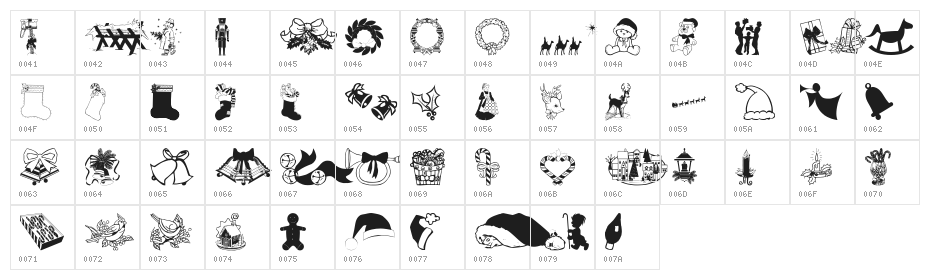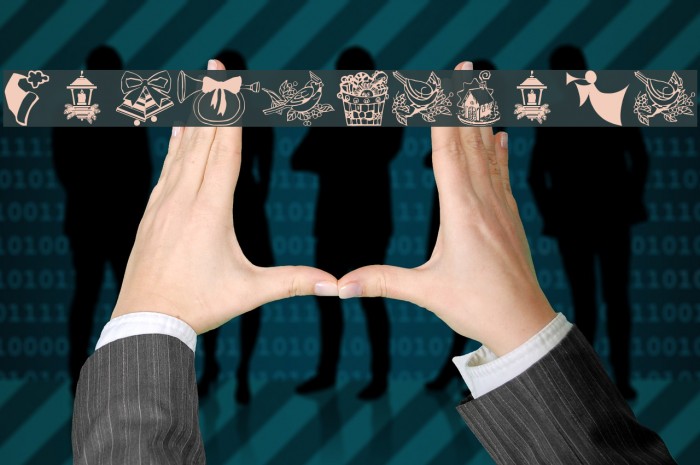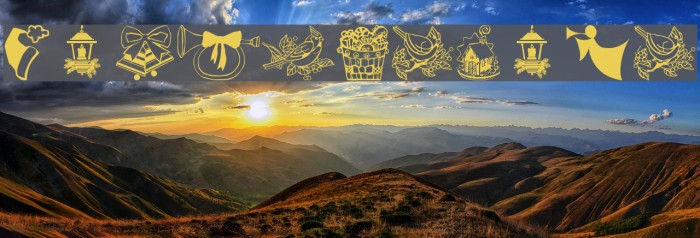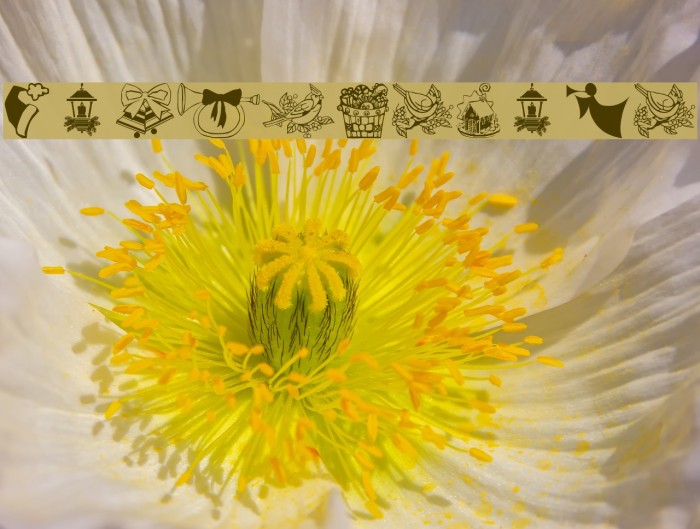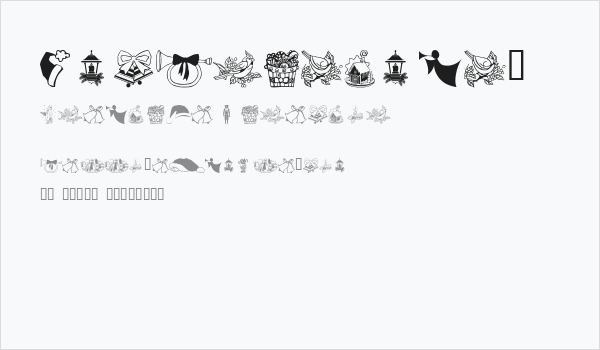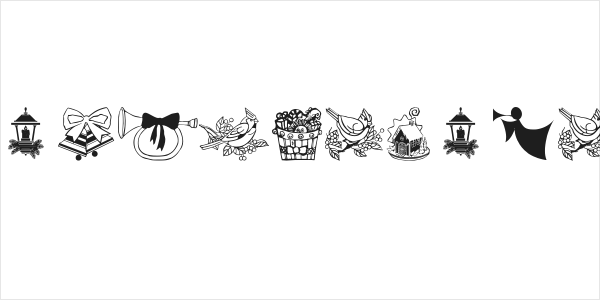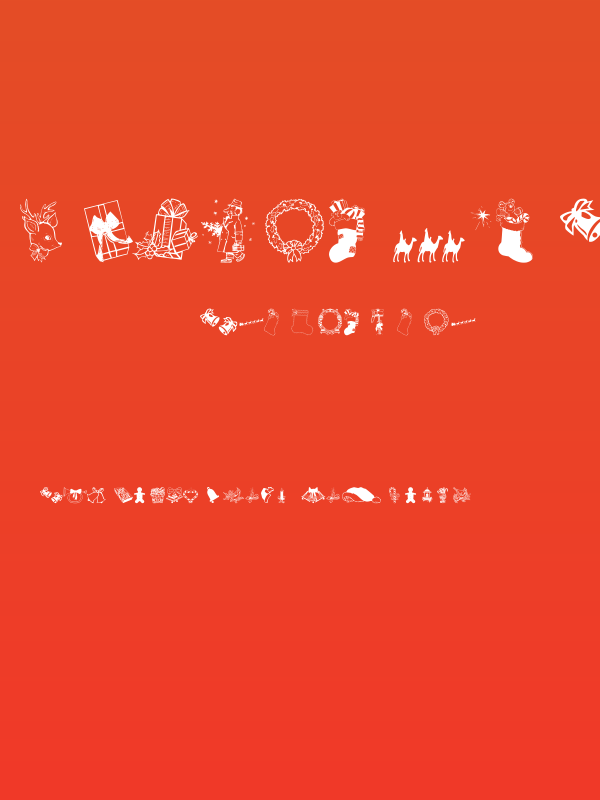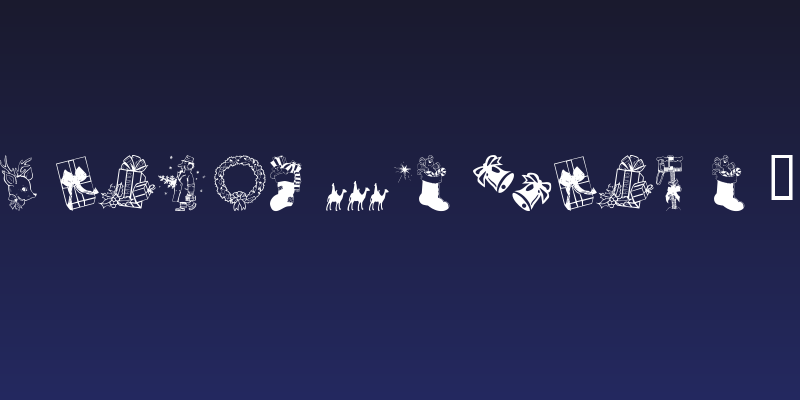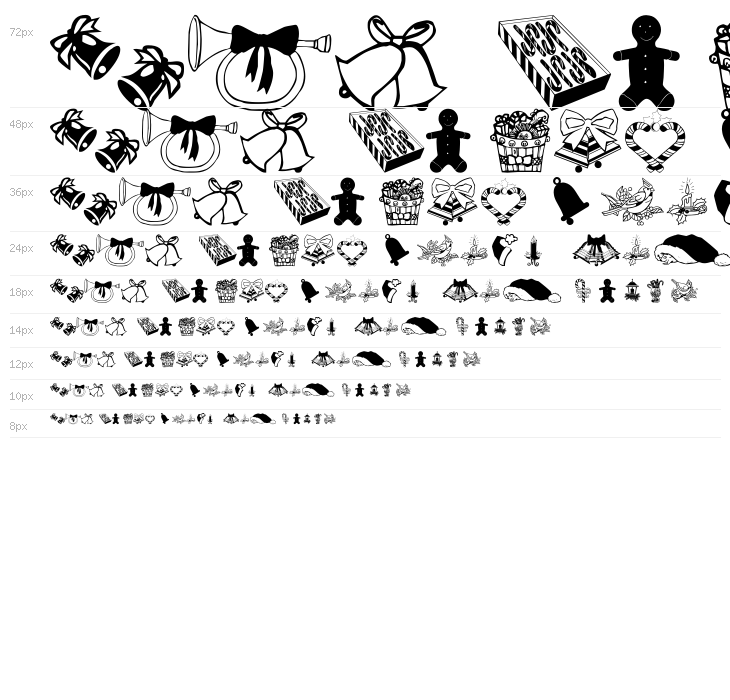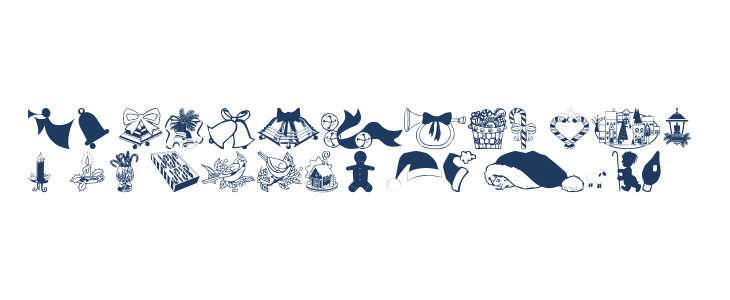
wmchristmas2 Font
wmchristmas2 Description
A decorative dingbat font featuring a variety of Christmas-themed illustrations such as wreaths, stockings, bells, gifts, reindeer, Santa hats, and other festive icons. Each character is represented by a unique holiday graphic, making it ideal for seasonal design projects.
| Overall Style | Decorative, Festive, Thematic |
| Use Case | Decorative elements, Themed graphics, Holiday crafts |
| Proposed Projects | Holiday cards, festive invitations, seasonal posters, gift tags, scrapbooking, digital decorations. |